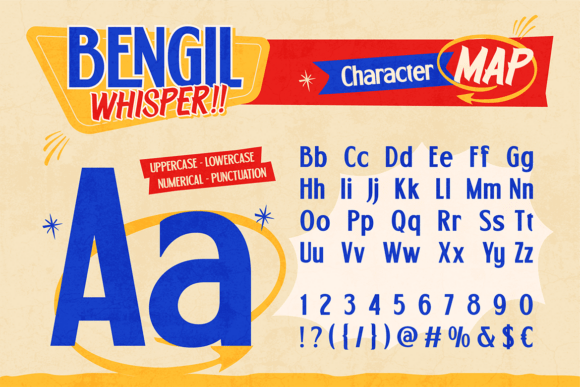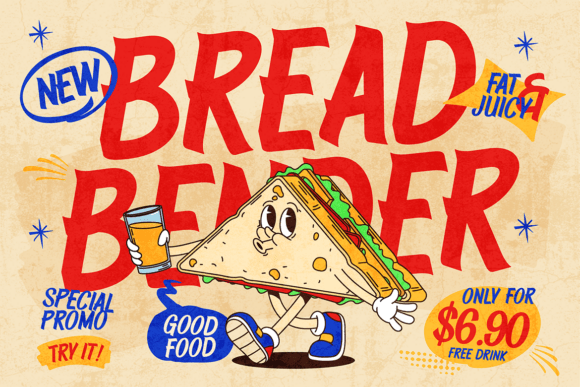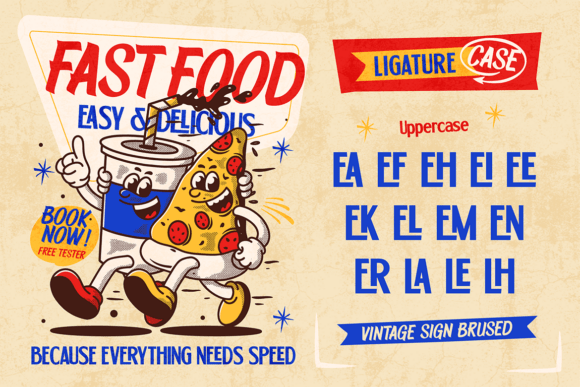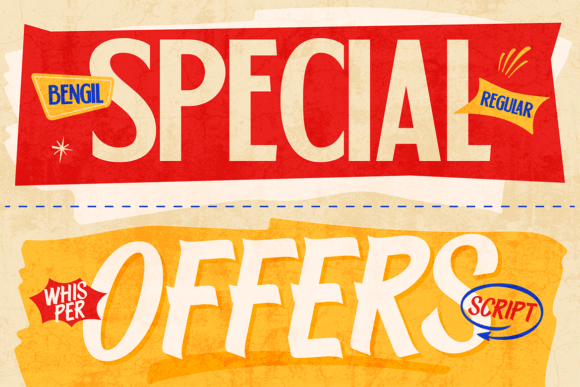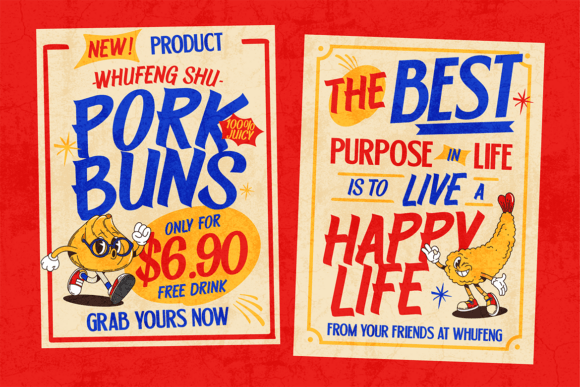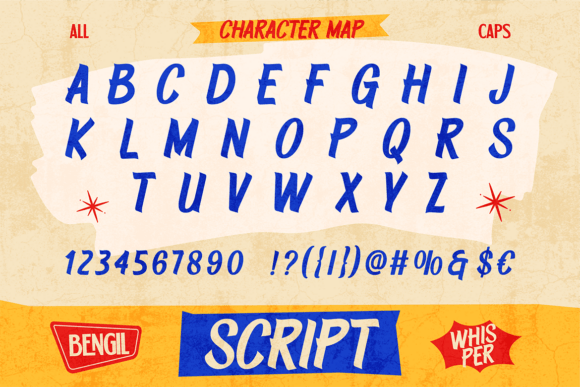
The Perfect Font for a Big Statement
Have you ever walked down a bustling street market and been stopped dead in your tracks by a bold, eye-catching sign that screams “BUY 1 GET 1 FREE!!”? That’s the kind of attention-grabbing magic that the Bengil Whisper Font is designed to bring to your designs.
With its unique blend of decorative sans serif and brush script styles, this font is perfect for creating high-energy graphics that pop. Whether you’re promoting a new product, creating a retro ad, or designing a social media banner, the Bengil Whisper Font is the perfect tool to help you make a big statement. Its versatility and expressive qualities make it a valuable asset for designers looking to add a little extra oomph to their work.
Bengil Whisper Font Key Features
- Font Style: Bengil Whisper is a sans-serif font with a unique blend of modern and traditional design elements.
- Unique Characteristics: Bengil Whisper features a distinctive lowercase ‘a’ and ‘g’ design, which adds a touch of elegance and sophistication to any design project.
Bengil Whisper Font Review
Overall, I’m quite impressed with the Bengil Whisper font. It has a unique, elegant feel to it that’s perfect for creative projects or branding.
Here are some things that I think work well:
- ✨ Unique aesthetic: Bengil Whisper has a distinct character that sets it apart from more common fonts.
- ✨ Good legibility: Despite its decorative nature, the font is still easy to read, even at smaller sizes.
- ✨ Versatile: Bengil Whisper can be used in a variety of contexts, from headers to body text.
- ⚠️ Limited language support: Bengil Whisper may not include all the characters you need for certain languages.
- ⚠️ Not ideal for small text: While Bengil Whisper is legible, it’s still a decorative font and may not be the best choice for very small text.
Overall, I think Bengil Whisper is a great choice for designers who want to add some flair to their projects. While it may not be suitable for every situation, it’s a versatile and unique font that can add a lot of character to your work.
Tips for Getting the Most Out of Bengui Whisper Font
Here are some tips for getting the most out of Bengui Whisper Font:
- Use it for creative projects that require a unique and elegant font.
- Pair it with bold and bright colors to create a striking visual effect.
- Use it for headings and titles to add a touch of sophistication.
Bengui Whisper Font is commonly used for:
- Artistic and creative projects.